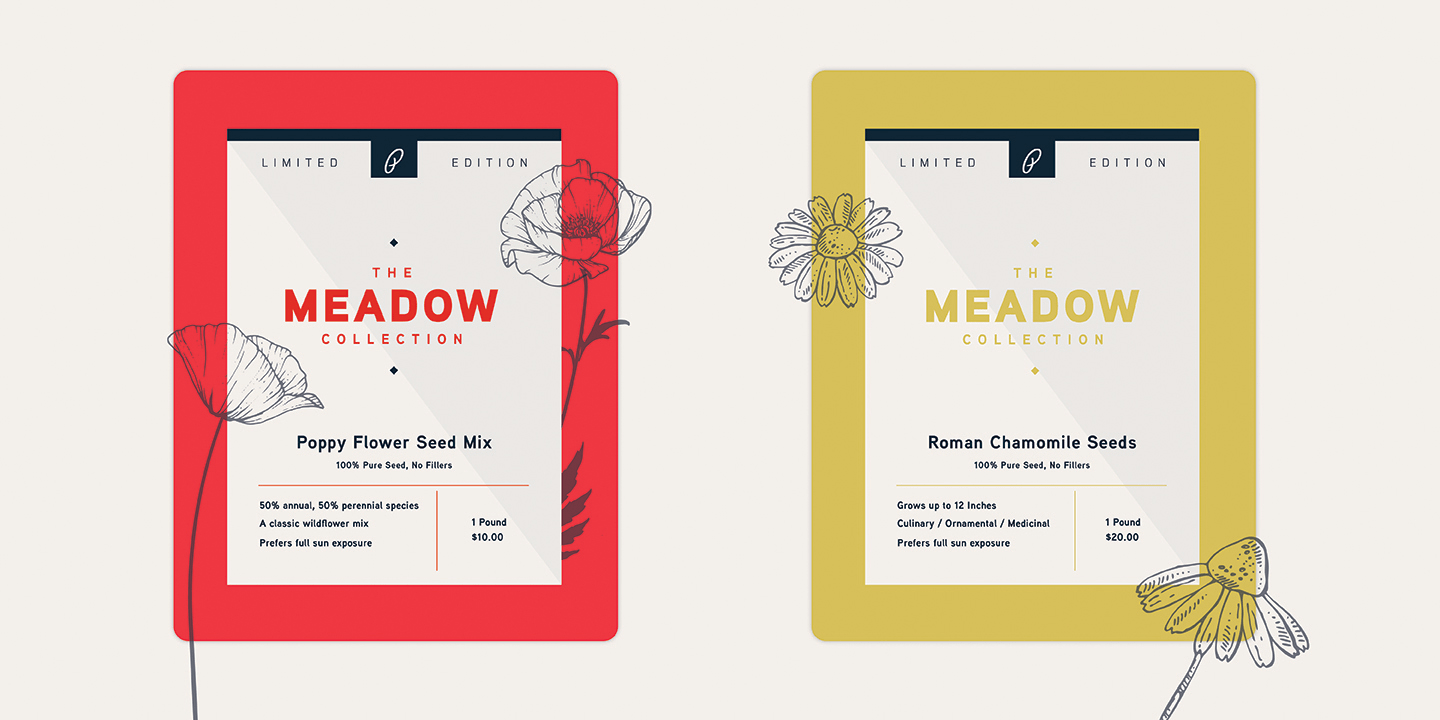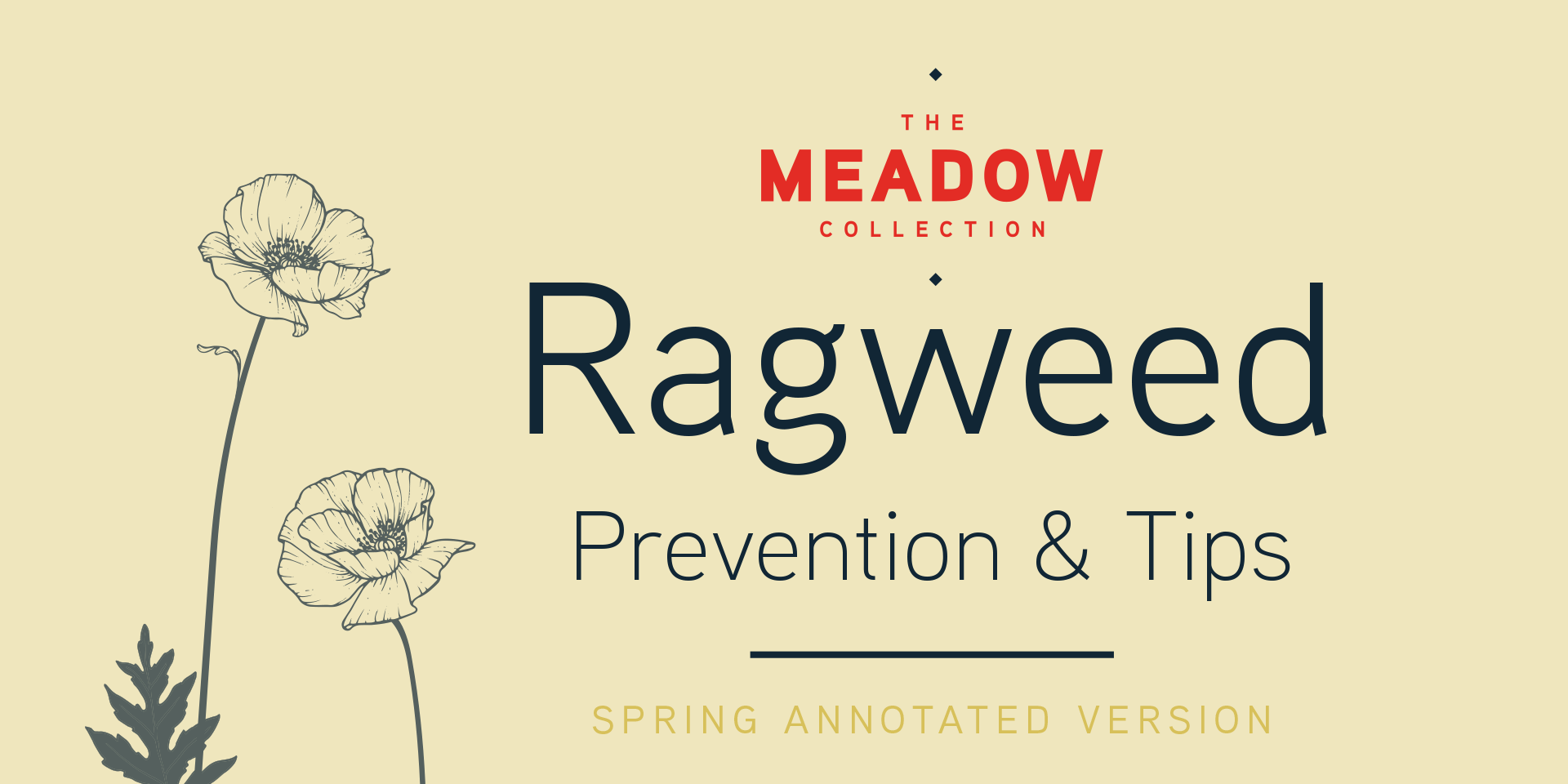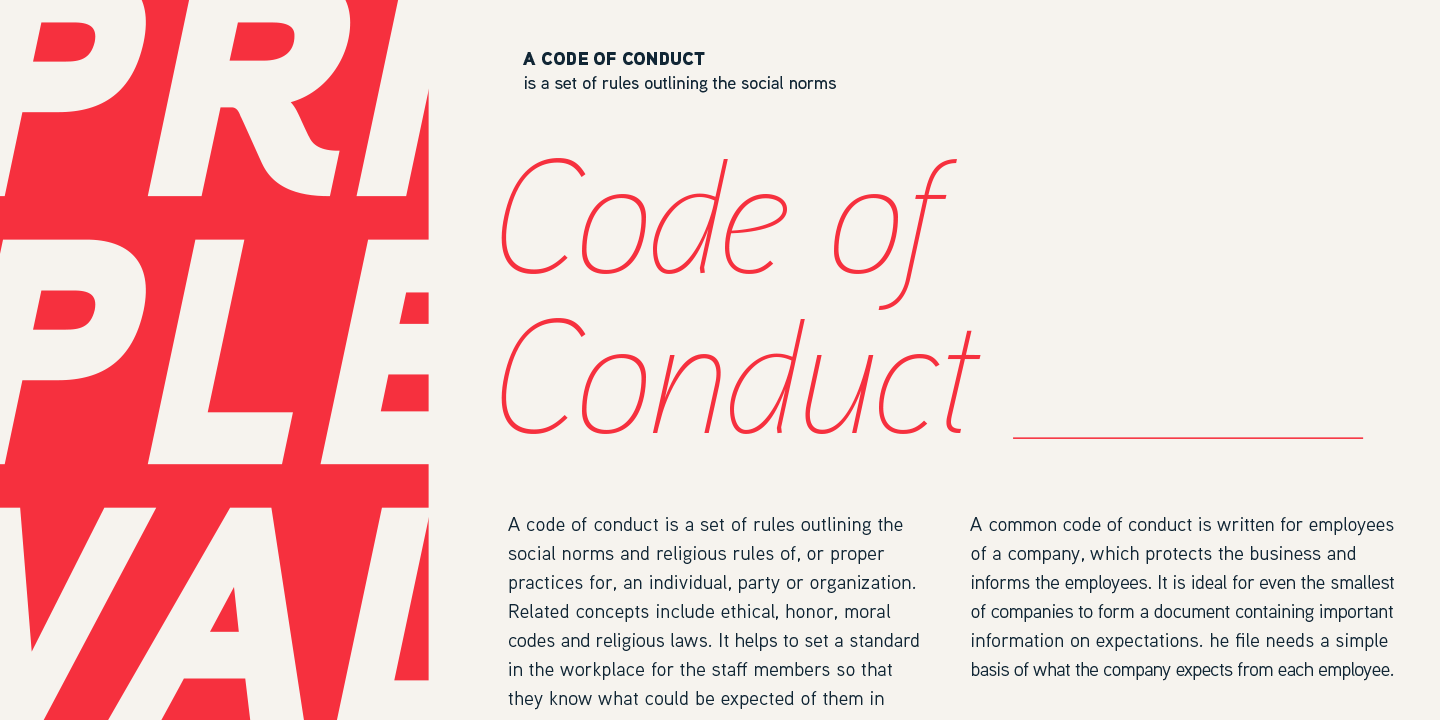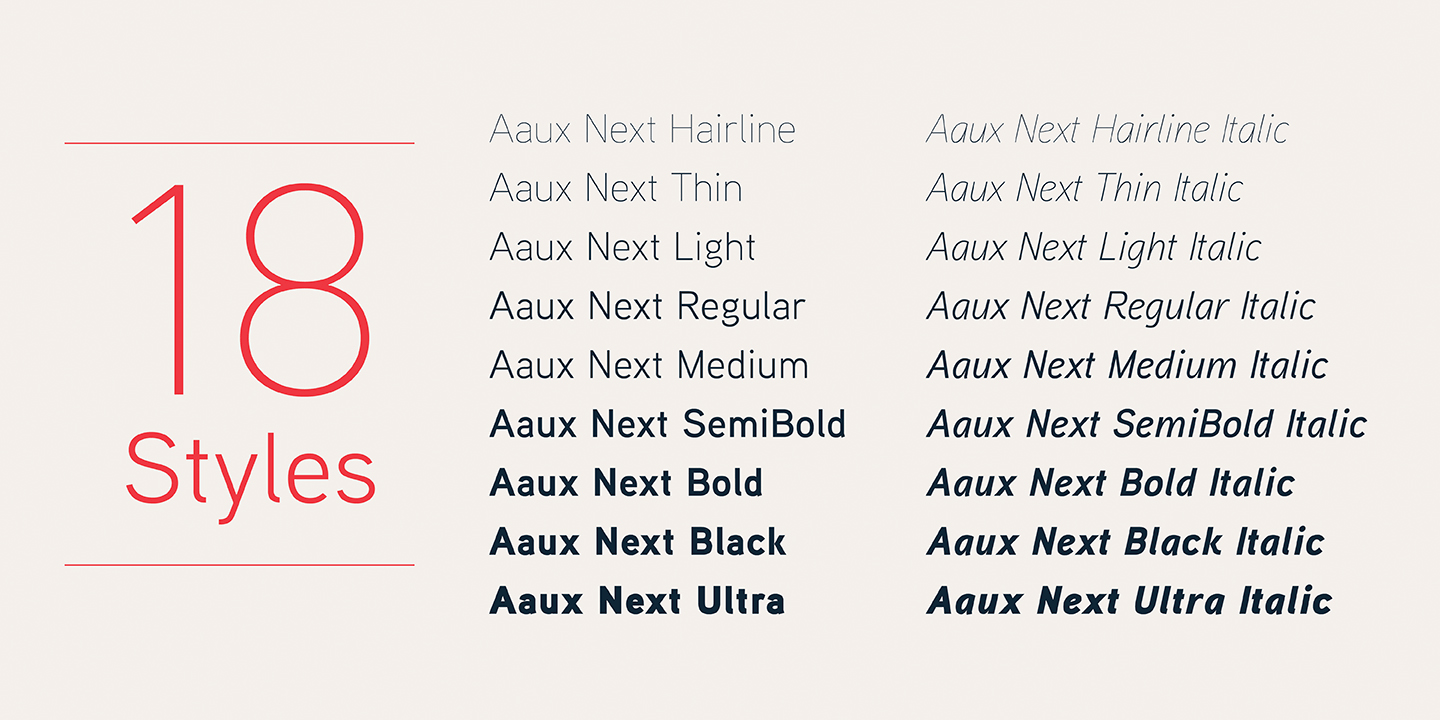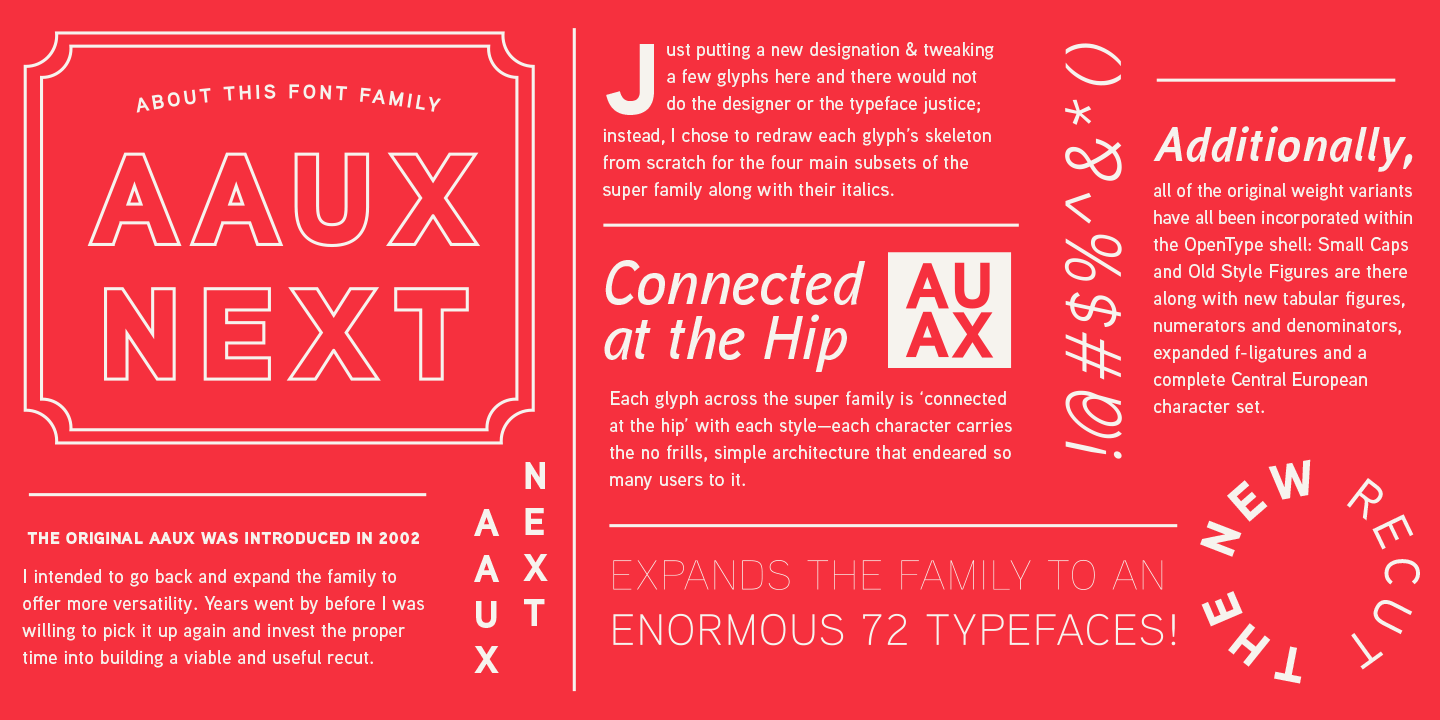
Aaux Next
Font Family by Positype
When the original Aaux was introduced in 2002, I intended to go back and expand the family to offer more versatility. Years went by before I was willing to pick it up again and invest the proper time into building a viable and useful recut. Just putting a new designation and tweaking a few glyphs here and there would not do the designer or the typeface justice; instead, I chose to redraw each glyph's skeleton from scratch for the four main subsets of the super family along with their italics. Each glyph across the super family is ?connected at the hip? with each style?each character carries the no frills, simple architecture that endeared so many users to it.
The new recut expands the family to an enormous 72 typefaces! The original has spawned Compressed, Condensed and Wide subsets?all with corresponding weights?for complete flexibility. Additionally, all of the original weight variants have all been incorporated within the OpenType shell: Small Caps and Old Style Figures are there along with new tabular figures, numerators and denominators, expanded f-ligatures and a complete Central European character set.